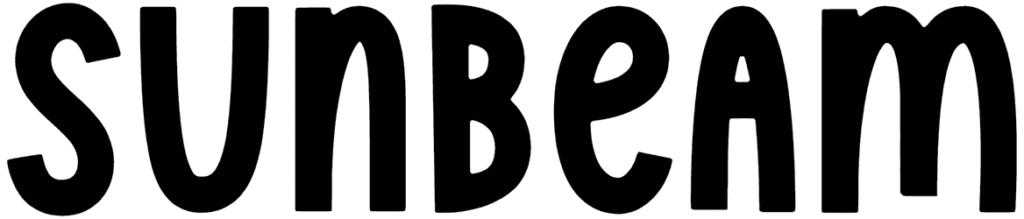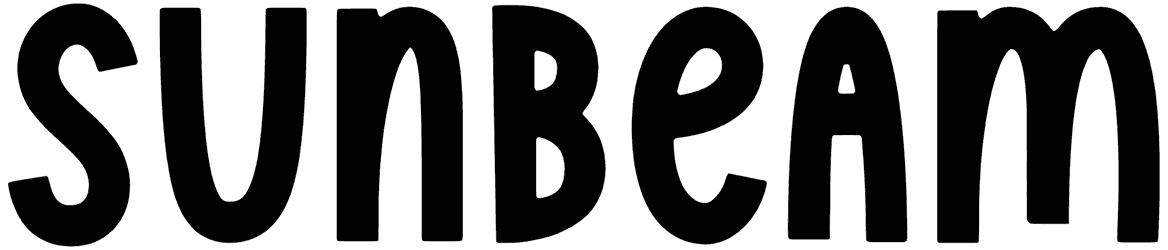
Sunbeam Font
Sunbeam is a comical cartoon font; it provides playful sans serif style characters. They are bold and rounded with a fun design. This font will give your typography an exciting feel with the cute letterforms it offers. Sunbeam font doesn’t include any lowercase alphabets, which will not affect your amazing result.
The friendly display of Sunbeam makes it a suitable font for books, games, apps, branding, children’s school books, animations, and wherever you wish to add this fantastic font.